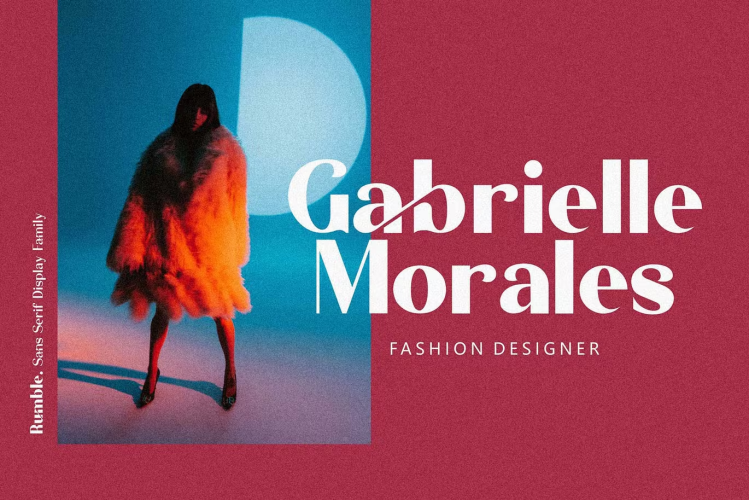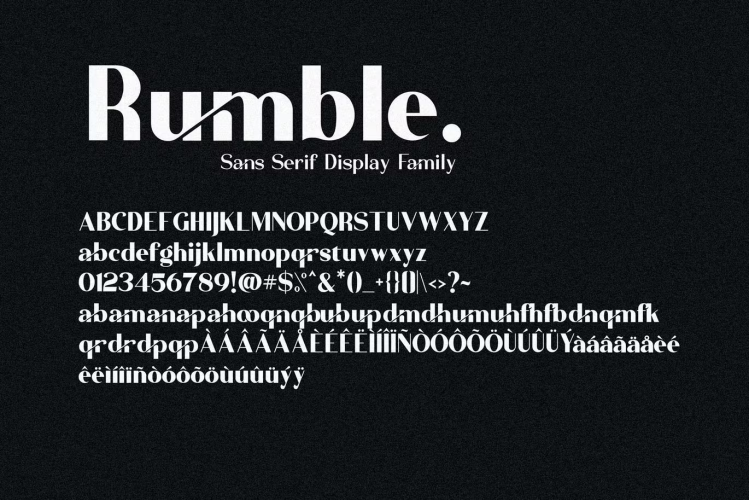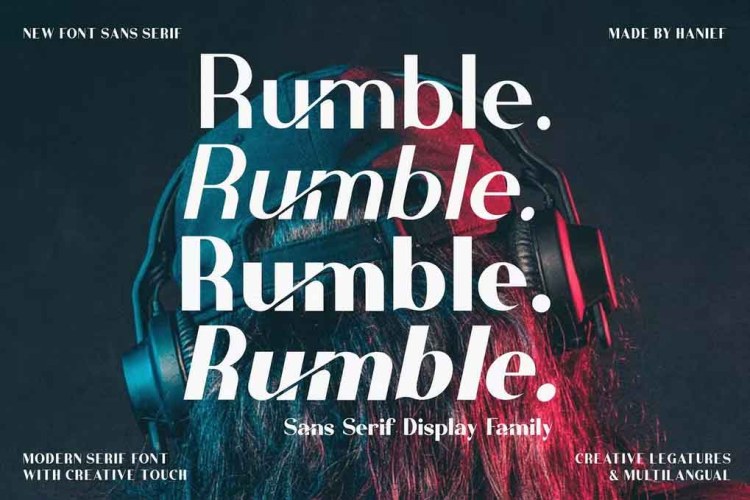
Rumble Elegant Font
Rumble sans serif. Combines elegant in letters, making this font look exclusive and elegant. With high letters display and thin in the anatomy of each letter. Rumble is…
Rumble sans serif. Combines elegant in letters, making this font look exclusive and elegant. With high letters display and thin in the anatomy of each letter. Rumble is a gorgeous sans-serif typeface that is both classically elegant and inherently modern. Create beautiful wedding invitations, use it as an elegant solution for your next magazine layout, or choose Rumble for any graphics that require a Elegant look with a vintage flair.. Rumble is based on classic letterforms for publishing and display graphics, so you can give your text a classic, elegant feel with Rumble clean.
Where Rumble Elegant Font works best
Rumble Elegant Font keeps its shape at 14 and 16 pixels, which is where interface text actually lives. Numbers and capitals stay distinguishable in tables.
Presentations are read at a distance; a clean sans with a strong bold is the safest hierarchy you can build in a hurry.
Simple letterforms survive angles, glare and movement, so Rumble Elegant Font suits door signs, menus boards and exhibition panels.
It sits in the Sans Serif Fonts group and reads as classic, display, elegant, modern. That makes it a candidate wherever those qualities help: headings, packaging, social graphics and brand work. Set it at the size you plan to use before deciding.